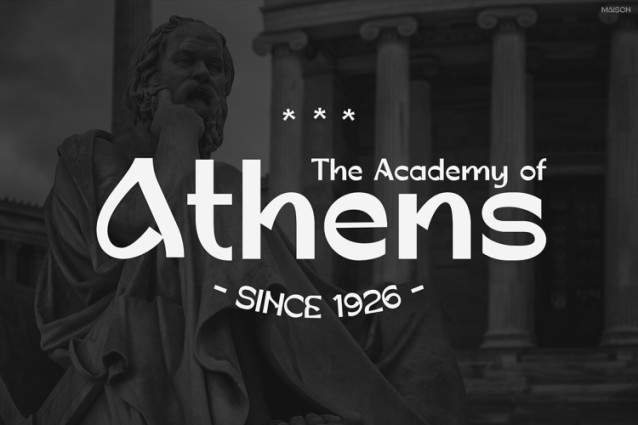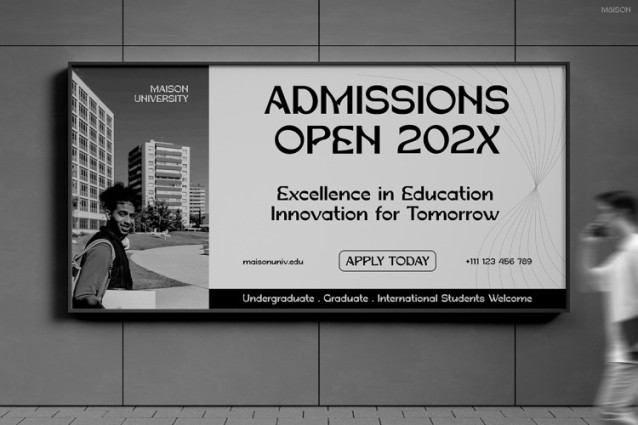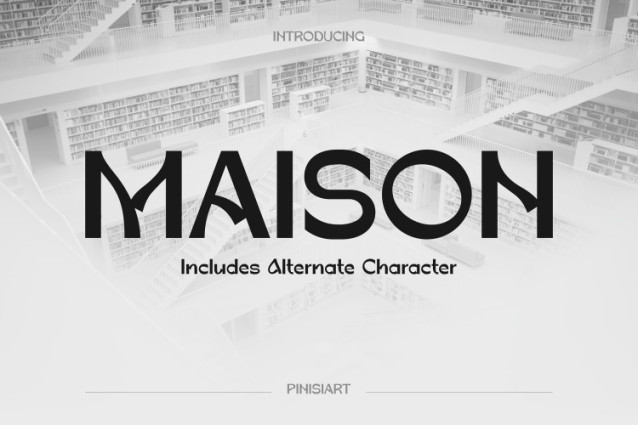
Maison Font
Maison Font is more than a typeface. It is a design tool that elevates words with balance and fresh style. Its sleek lines and modern curves give every project a professional yet creative edge. Moreover, the font mixes clarity with personality, which makes it both readable and eye-catching. The alternate characters and ligatures add flexibility, so you can adapt the look for many situations. As a result, Maison works equally well for bold titles or subtle, elegant designs. Therefore, it becomes a reliable choice for branding, Instagram visuals, editorial layouts, and digital promotions.
Maison carries a geometric foundation with refined details. The uppercase letters are bold and commanding, while the lowercase set feels approachable and friendly. This balance keeps designs strong but never stiff. In addition, numbers and punctuation are included, making it dependable for various projects. For example, you can use it for stylish tote bag quotes, polished ads, or clean editorial spreads. Its versatility is, therefore, one of its strongest features. On Instagram, Maison helps posts and stories shine, since every character looks sharp on screens. Furthermore, the smooth curves and balanced structure give your content a professional finish.